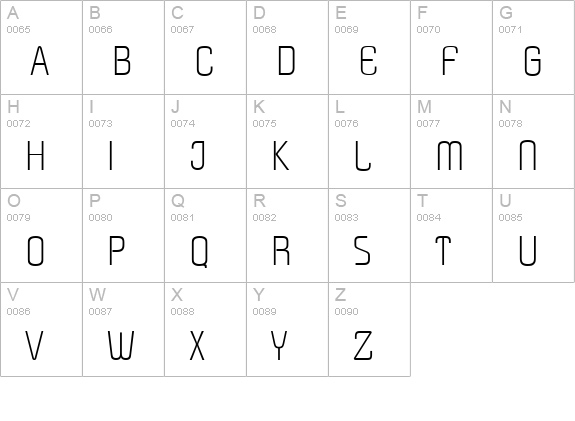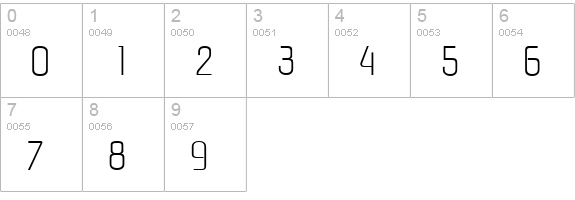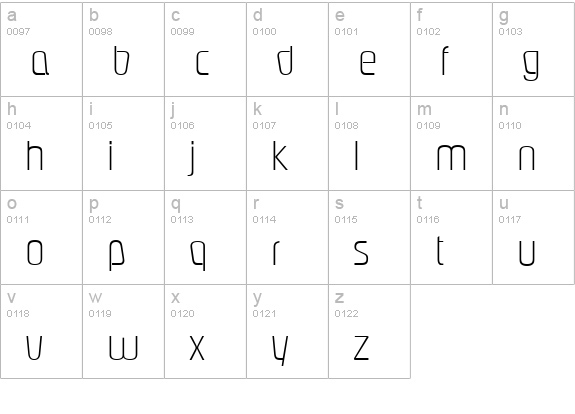
PasadenaSerial-Xlight-Regular is the standard, neutral variant in the PasadenaSerial typeface family \xE2\x80\x94 well suited to general body text, paragraphs, and standard typographic work.
PasadenaSerial-Xlight-Regular font is a modern and sleek typeface that exudes elegance and sophistication. With its clean lines and subtle curves, this font is perfect for a wide range of design projects, from branding to editorial design. The light weight of the font gives it a delicate and refined appearance, making it ideal for conveying a sense of sophistication and style. What makes PasadenaSerial-Xlight-Regular font even more appealing is that it is available for free download at FontsMarket.com. This means that you can easily access this beautiful font and use it in your projects without any cost. Whether you are a designer looking to add a touch of class to your work or a business owner wanting to elevate your branding, PasadenaSerial-Xlight-Regular font is a fantastic choice that won't break the bank. Download it today and enhance your designs with this elegant and timeless typeface.